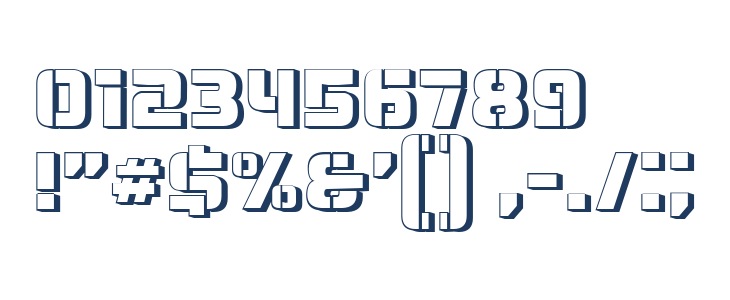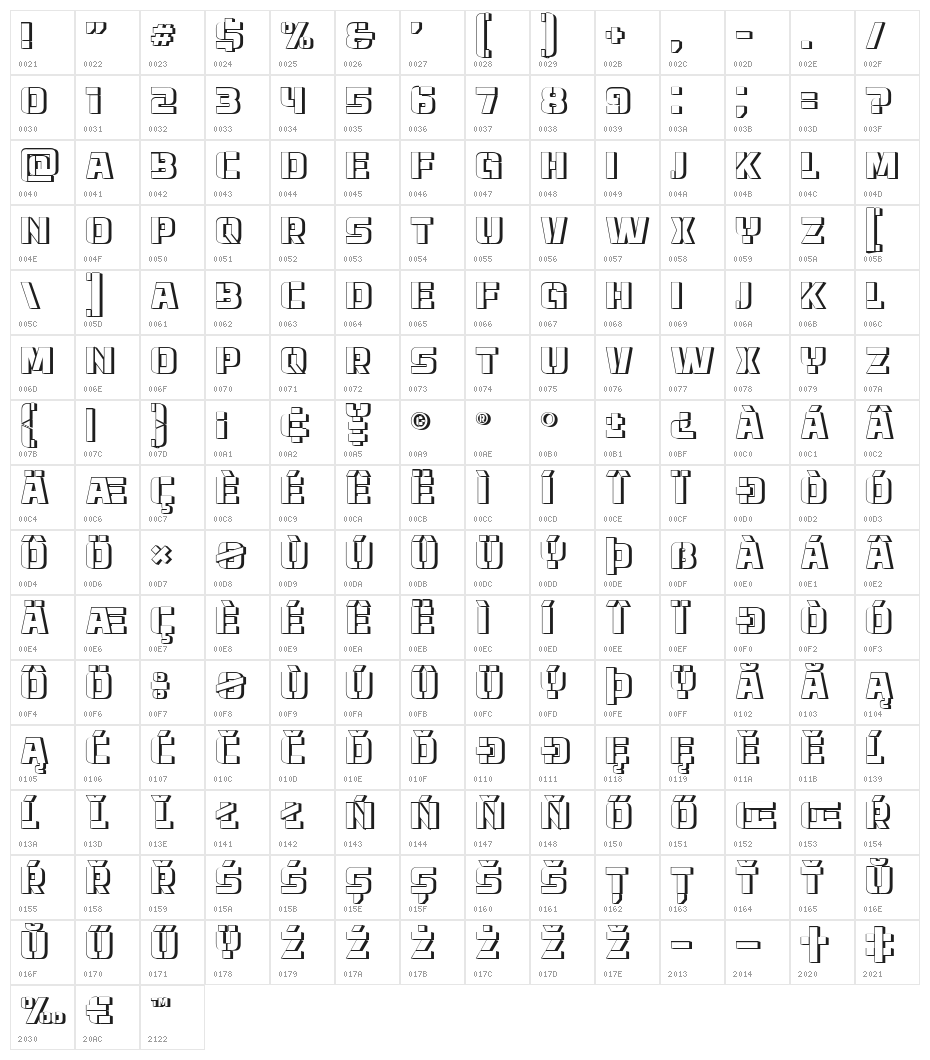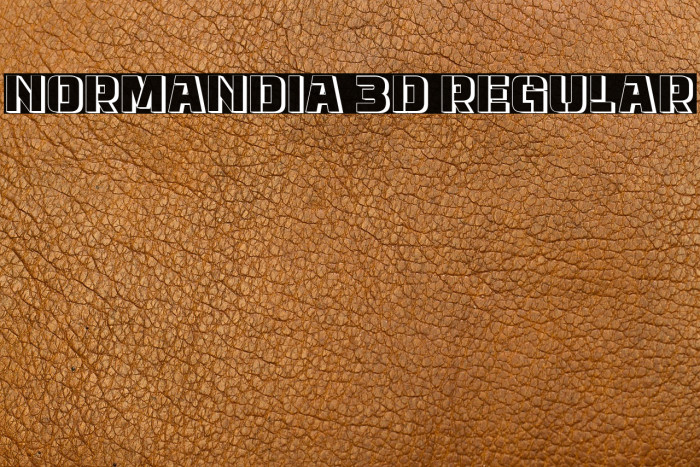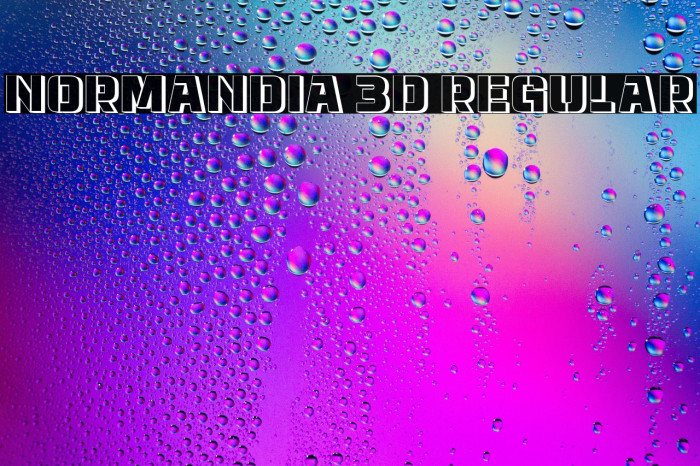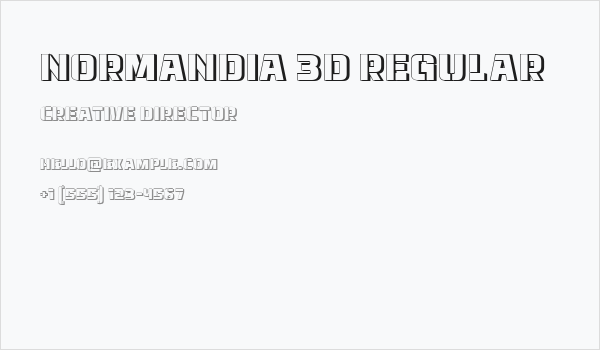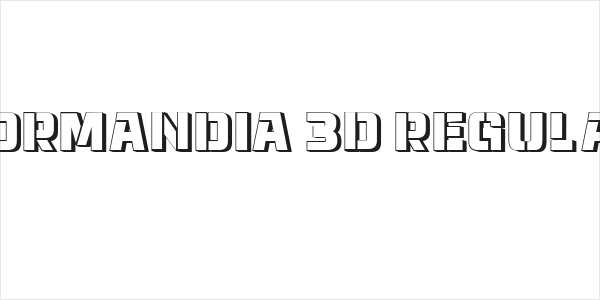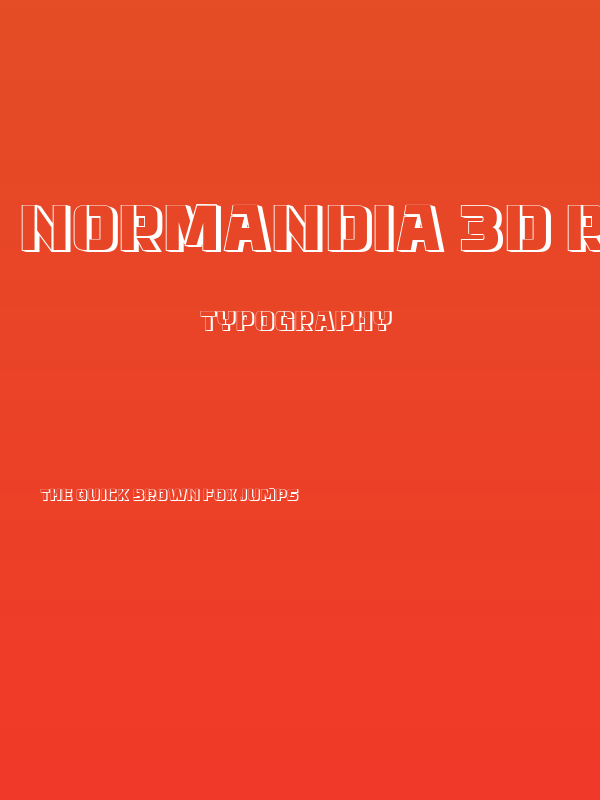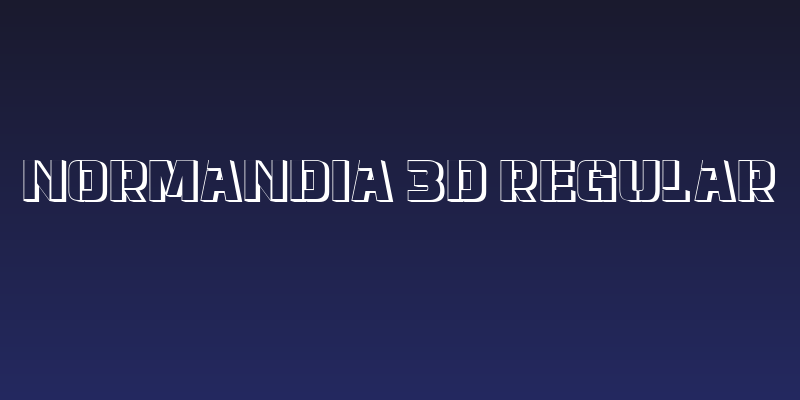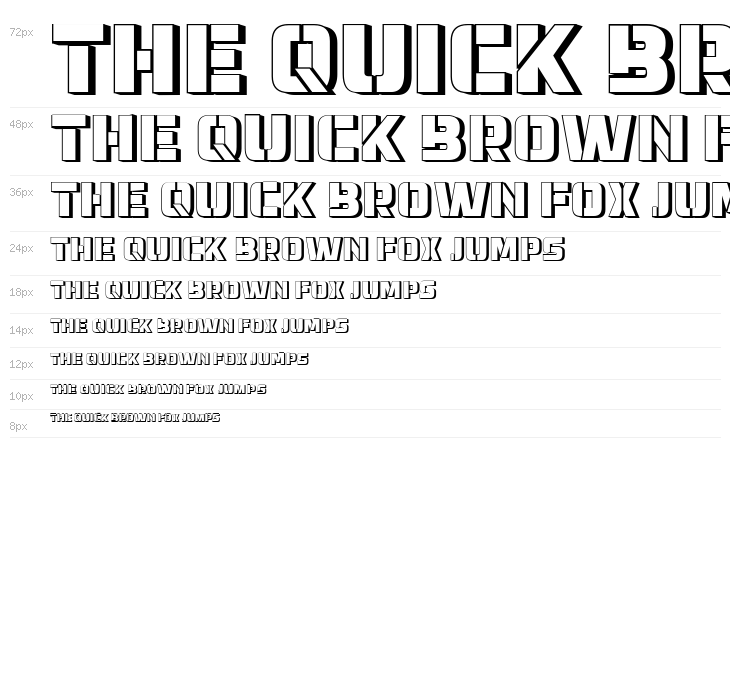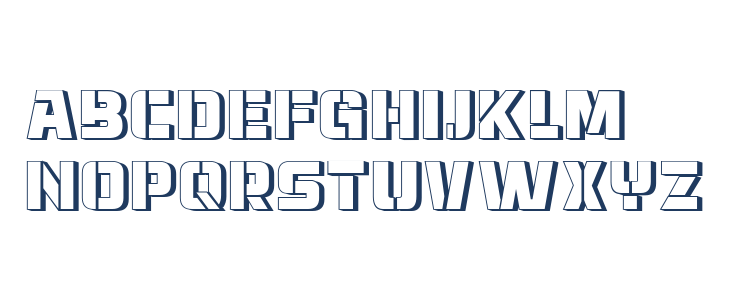
Normandia 3D Regular Font
Normandia 3D Regular Description
This font features a bold, three-dimensional style with a strong geometric influence. The characters are outlined, giving them a hollow appearance that enhances the 3D effect. The uppercase letters are uniform in height, with sharp angles and clean lines that create a modern and industrial feel. The numerals and special characters maintain the same design principles, ensuring consistency across all glyphs. This font's unique style makes it stand out, ideal for eye-catching designs.